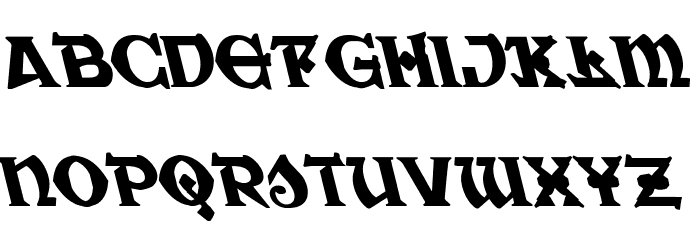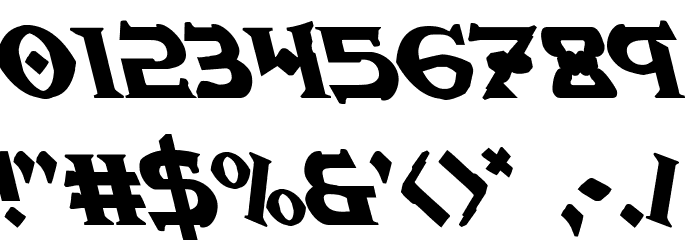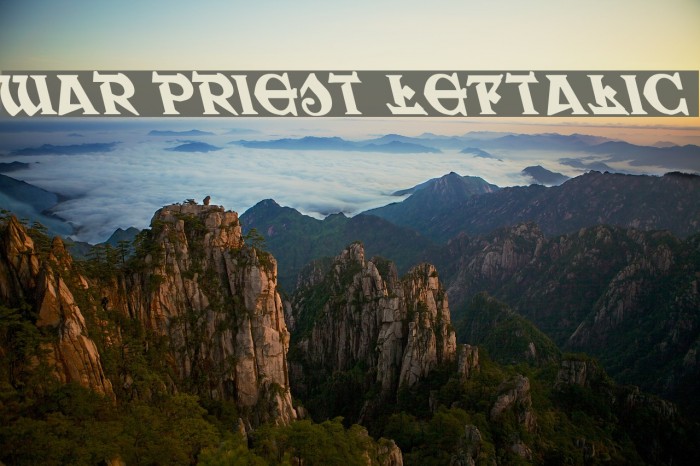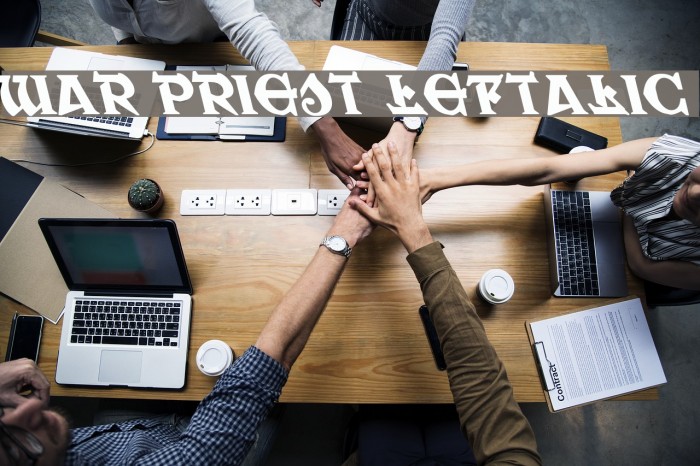
War Priest Leftalic Font
This font features a bold and aggressive style with sharp, angular edges and a distinct leftward slant. The characters are heavily stylized, incorporating elements that suggest a medieval or gothic influence. The uppercase and lowercase letters maintain a consistent design, with unique flourishes that add to the font's dramatic appearance. The numerals and special characters are equally bold, ensuring a cohesive look across all text elements. This font's striking appearance makes it ideal for projects that require a strong visual impact.
A bold, angular font with a gothic influence and leftward slant.
- Proposed Projects: Ideal for video game titles, fantasy book covers, and heavy metal band logos.
- Overall Style: Gothic, Decorative